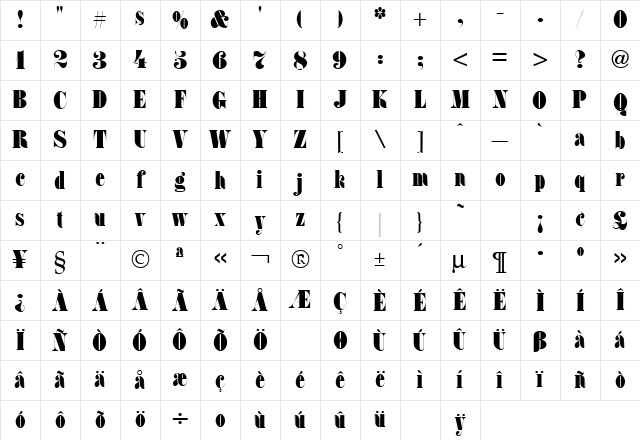
Fat Regular
Fat Family
Fat Regular
Design Context for Fat
Fat is a composed and adaptable typeface that performs quietly and consistently across a wide range of design contexts.